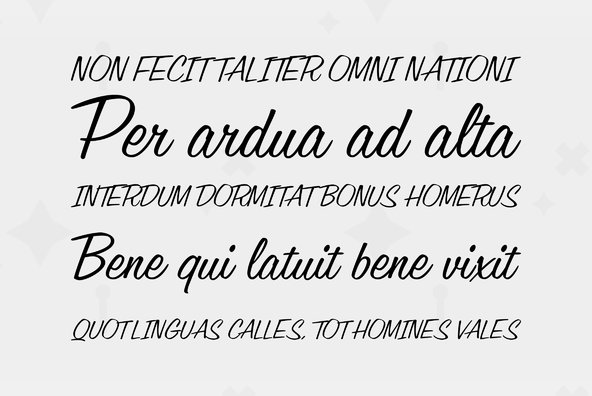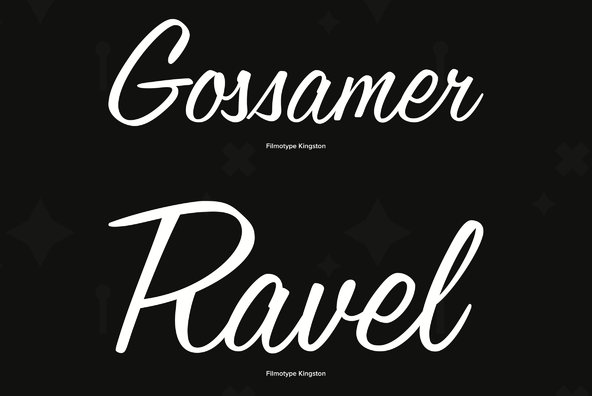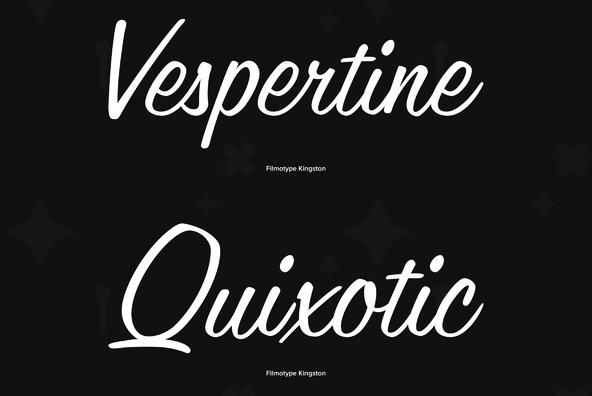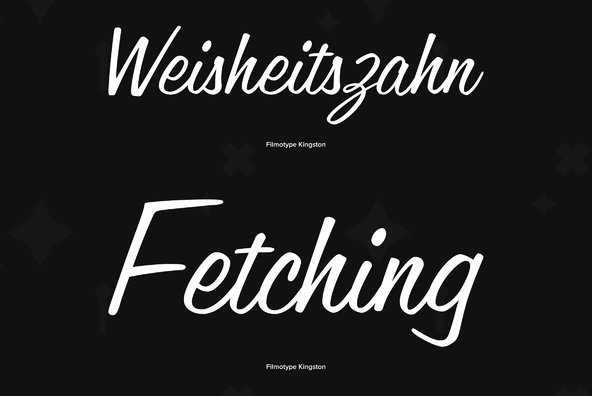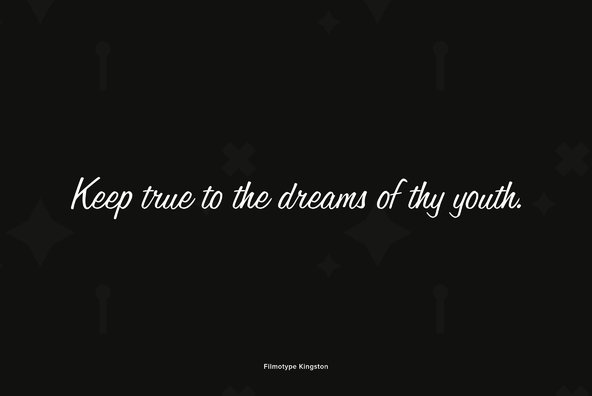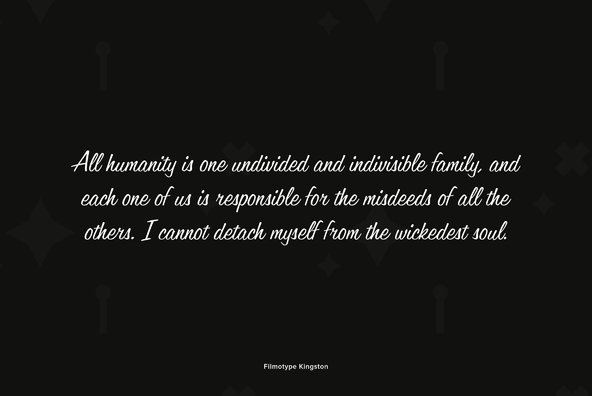
Filmotype Kingston
Filmotype Kingston was released by Filmotype in the early to mid-1950s as part of its handlettered script styles and it gained wildly popular use with many Filmotype owners as the first true italic version of its first connecting script face Filmotype Harmony by Ray Baker.
Filmotype Kingston was developed from the original font filmstrips and includes a full international character compliment, automatic fractionals, ordinals, and a large set of automatic alternate contextual characters and ligatures to allow flawless typesetting in dynamic OpenType format.